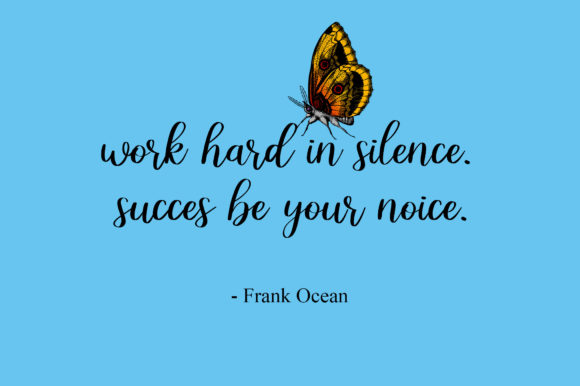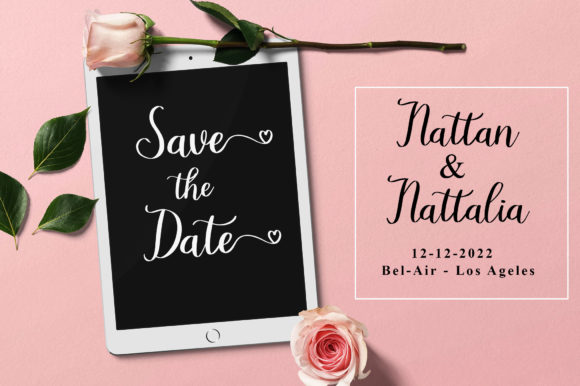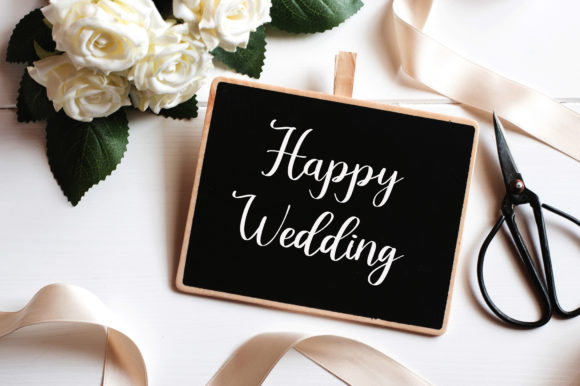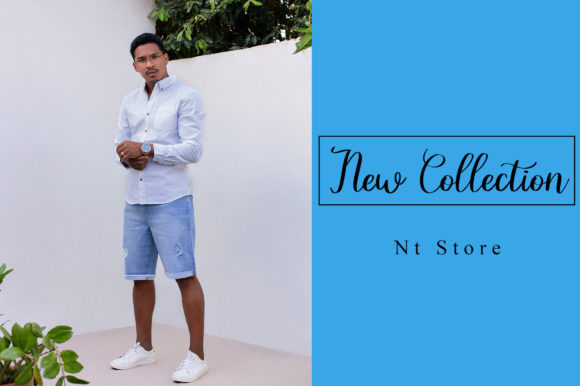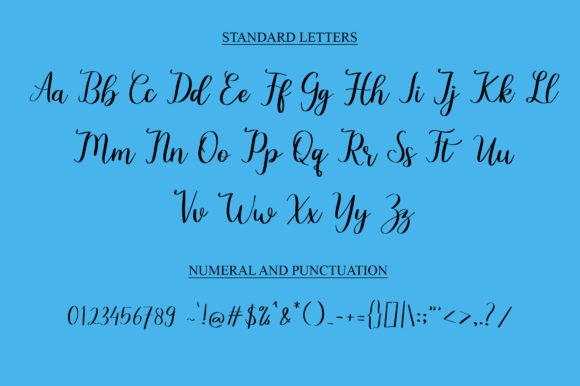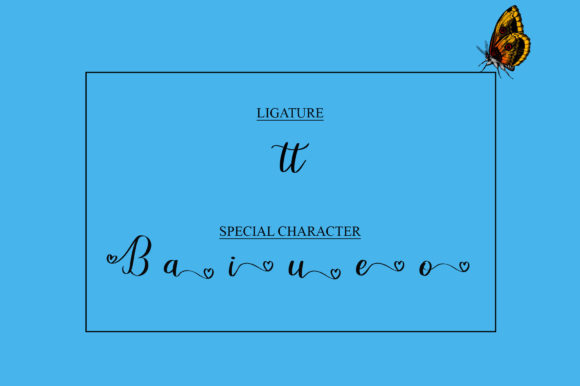
Introducing Butterfly Font: The Elegant and Dainty Handwritten Font for Crafty Ideas
Are you a designer or crafter looking for a font that exudes elegance and delicacy? Look no further than Butterfly Font, a beautiful handwritten font that features sweet and delicate swashes. With its original look, Butterfly Font is perfect for a wide range of crafty ideas, from letterheads and titles to stationery and more.
What Makes Butterfly Font Special?
Butterfly Font is a unique and eye-catching font that stands out from the crowd. Its elegant and dainty design makes it perfect for projects that require a touch of sophistication and whimsy. The font features delicate swashes that add a playful and romantic touch to any design. Whether you’re creating a wedding invitation, a brand logo, or a craft project, Butterfly Font is sure to impress.
Key Features of Butterfly Font
- Elegant and dainty design: Butterfly Font features a beautiful, handwritten design that is both elegant and dainty.
- Sweet and delicate swashes: The font includes sweet and delicate swashes that add a playful and romantic touch to any design.
- Original look: Butterfly Font has an original look that sets it apart from other fonts.
- Versatile: The font is perfect for a wide range of crafty ideas, from letterheads and titles to stationery and more.
Uses for Butterfly Font
Butterfly Font is a versatile font that can be used for a variety of projects. Here are some ideas to get you started:
- Wedding invitations and stationery: The elegant and dainty design of Butterfly Font makes it perfect for wedding invitations, stationery, and other wedding-related projects.
- Brand logos and branding: The unique and eye-catching design of Butterfly Font makes it perfect for brand logos and branding projects.
- Craft projects: Butterfly Font is perfect for craft projects, such as scrapbooking, card making, and other paper crafts.
- Letterheads and titles: The font is also great for letterheads, titles, and other text-based projects.
Tips for Using Butterfly Font
Here are some tips for using Butterfly Font in your projects:
- Use it sparingly: Because Butterfly Font is a decorative font, it’s best to use it sparingly. Use it for headings, titles, and other important text, but use a simpler font for body text.
- Pair it with a simple font: Pair Butterfly Font with a simple font, such as Arial or Helvetica, to create a beautiful contrast.
- Experiment with colors: Butterfly Font looks great in a variety of colors, so don’t be afraid to experiment and find the perfect color for your project.
Butterfly Font is a beautiful and elegant handwritten font that is perfect for designers and crafters. With its delicate swashes and original look, it’s sure to add a touch of sophistication and whimsy to any project. Whether you’re creating a wedding invitation, a brand logo, or a craft project, Butterfly Font is a great choice. So why not give it a try and see what amazing projects you can create?